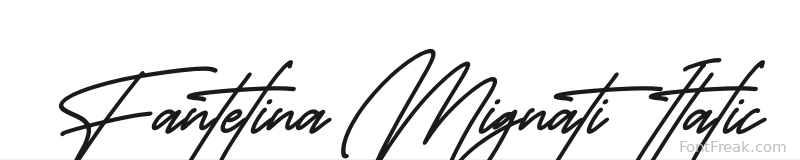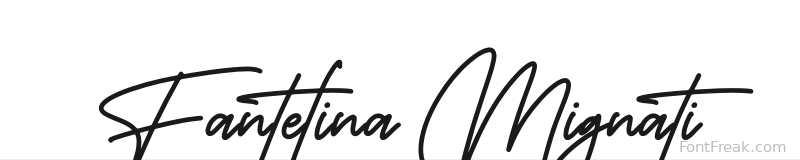
Fantelina Mignati
Fantelina Mignati Italic
About Fantelina Mignati
Fantelina Mignati is a beautifully crafted script font designed by Perspectype Studio, released in 2021 under a freeware license. This font falls into the script category, characterized by its elegant, flowing lines that evoke a sense of sophistication and artistry. The stroke weight is varied, providing a delightful contrast that enhances its visual appeal, while the spacing is thoughtfully designed to ensure readability without sacrificing style. The decorative elements, such as the graceful swirls and flourishes, add a touch of personality that can elevate any design project.
Fantelina Mignati is perfect for a variety of applications. Its stylish nature makes it an excellent choice for wedding invitations, where the graceful lettering can set a romantic tone. It also works beautifully for branding materials, such as logos or product packaging, offering a unique flair that resonates with consumers. Additionally, this font is suitable for event posters, where its elegance can attract attention and convey important information in a visually appealing manner. Restaurant menus can also benefit from the charm of Fantelina Mignati, as the script can evoke a sense of fine dining and sophistication.
The target audience for this font includes graphic designers, small business owners, and content creators looking to enhance their projects with a distinctive typeface. Whether you are designing for print or digital, this font adds a touch of elegance that can make your work stand out.
What sets Fantelina Mignati apart is its ability to blend artistic flair with practicality. This font not only captures attention but also maintains clarity and readability, making it an essential addition to any designer's toolkit. For those seeking to elevate their designs, the Fantelina Mignati font free download is an opportunity not to be missed.